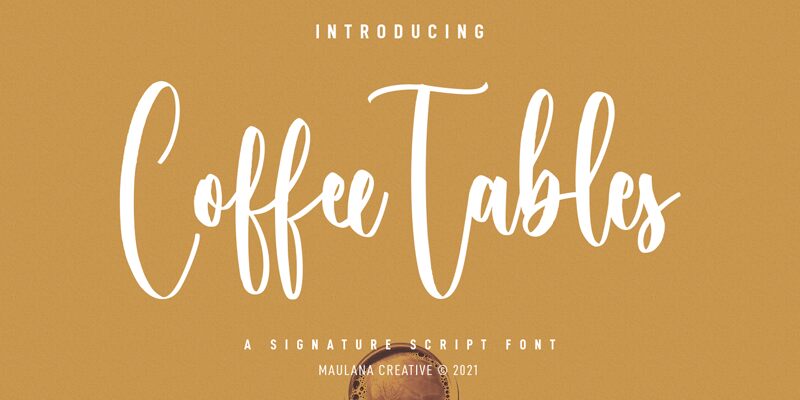
Coffee Tables
Coffee Tables is a stunning calligraphy font designed by Maulana Creative. This semi-light, condensed font is perfect for a wide range of projects. With its elegant and sophisticated style, it's ideal for wedding invitations, branding, logos, and social media graphics. The unique curves and swirls of the letters provide an eye-catching appeal that will make your designs stand out from the crowd. Whether you're creating a vintage-inspired poster or modern logo design, Coffee Tables' versatility and beauty make it a must-have for any designer looking to elevate their work to the next level.